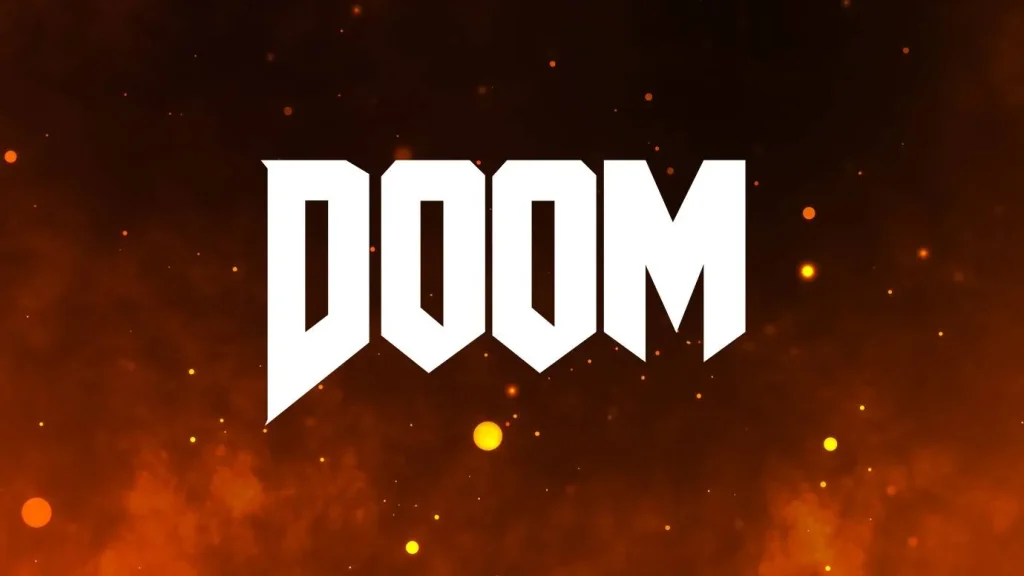
Doom Font style has a highly readable design, even in the capital and small letters. The style has a unique character and beautiful design.
This typeface also supports several international languages. This lettering style is extremely understandable and easy to read.